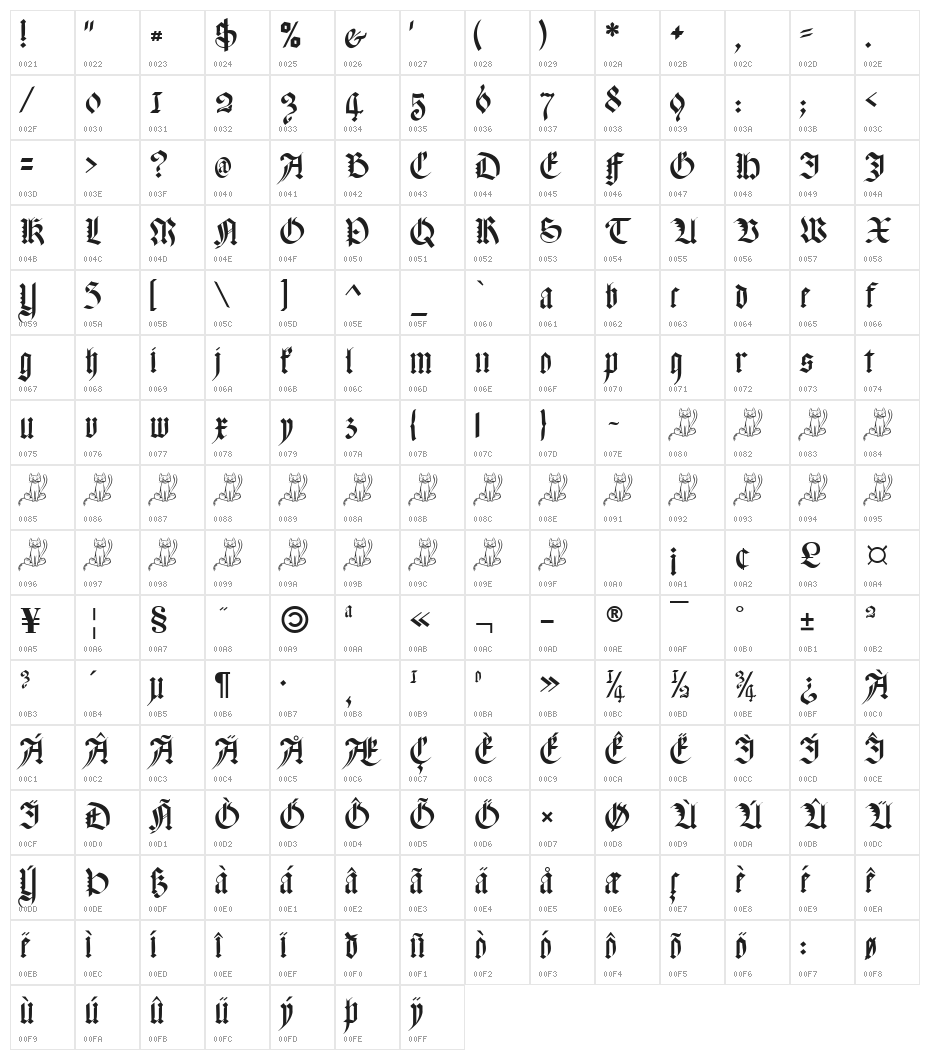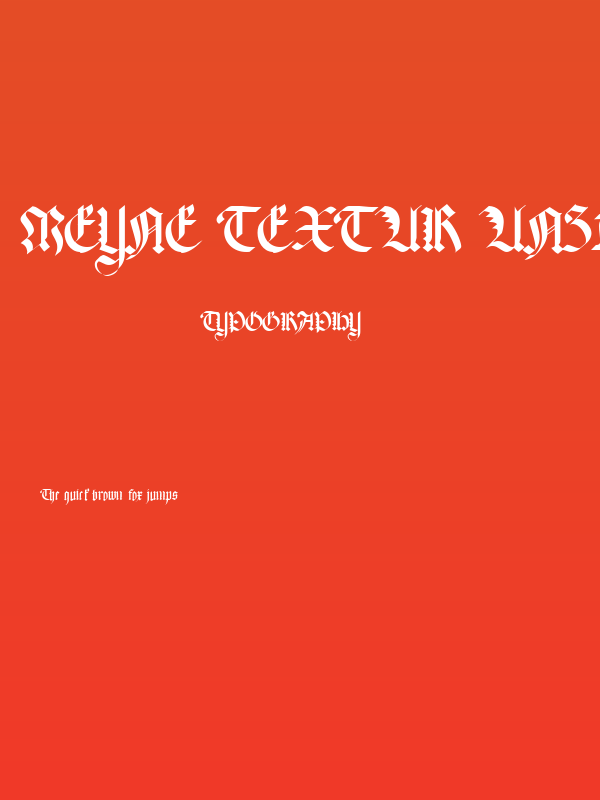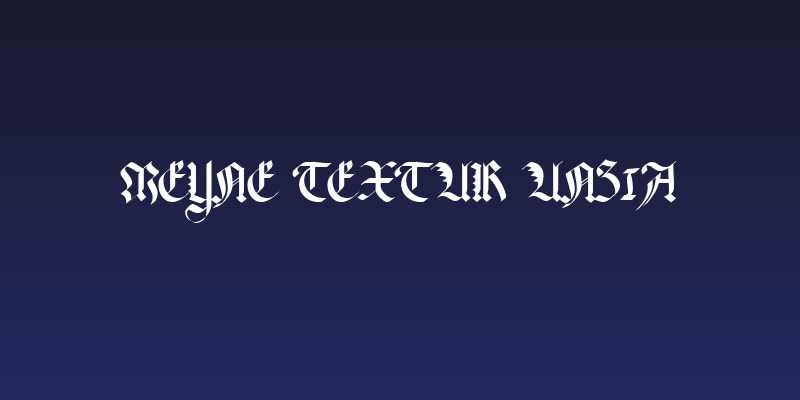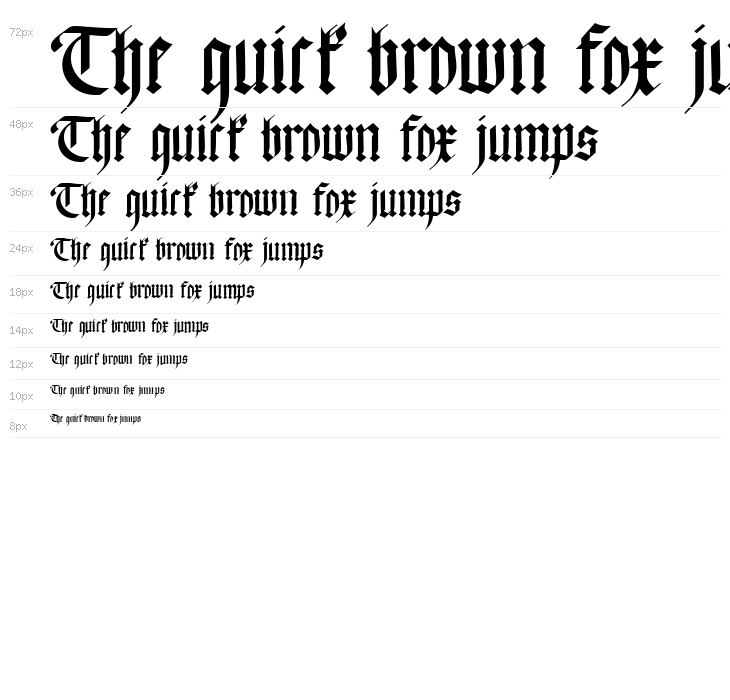
Meyne Textur UNZ1A Font
Meyne Textur UNZ1A Description
This font is a striking example of Blackletter style, characterized by its intricate and angular letterforms. The uppercase letters exhibit a strong, bold presence with sharp edges and dramatic strokes, while the lowercase letters maintain a consistent flow with a slightly more rounded appearance. The numerals and special characters are equally elaborate, featuring unique flourishes that enhance the overall gothic aesthetic. This font's design is reminiscent of medieval manuscripts and traditional calligraphy, making it ideal for projects that require a historical or formal touch.
| Use Case | Logos, Headlines, Decorative purposes |
| Proposed Projects | Suitable for historical documents, wedding invitations, certificates, branding for luxury products, and any design that seeks a classic, medieval feel. |